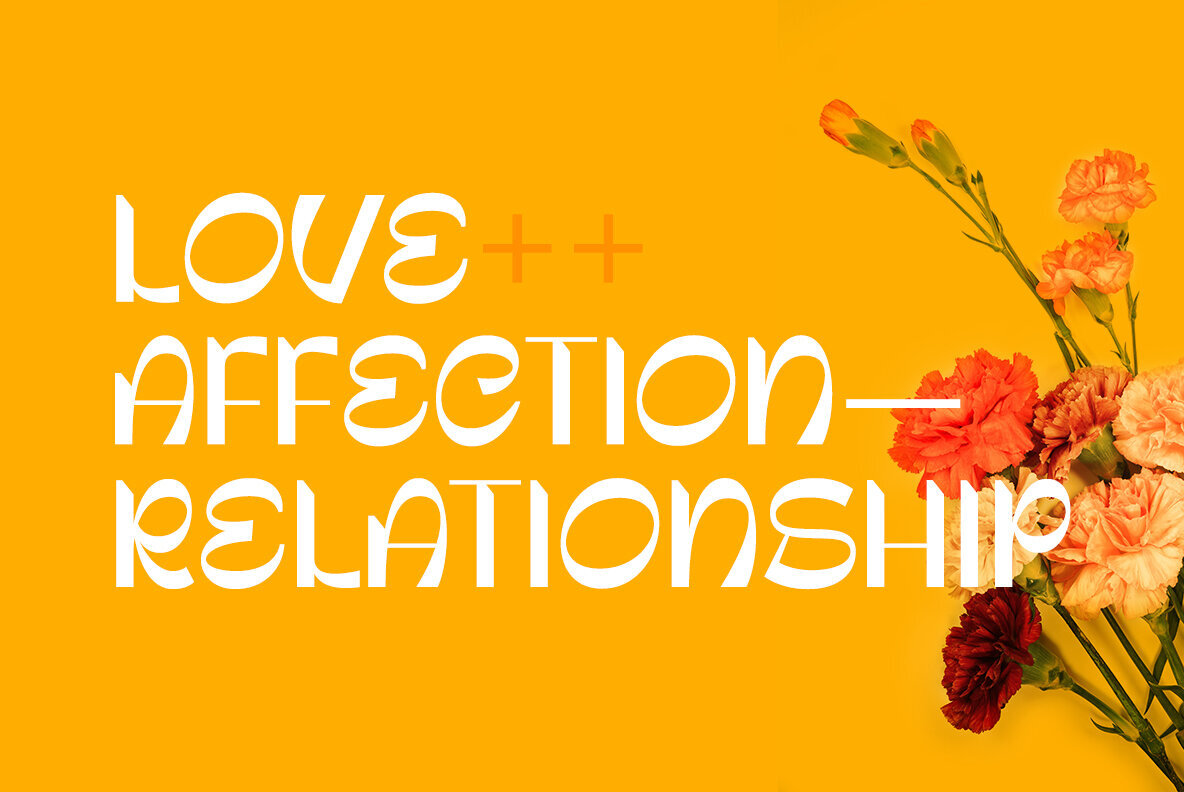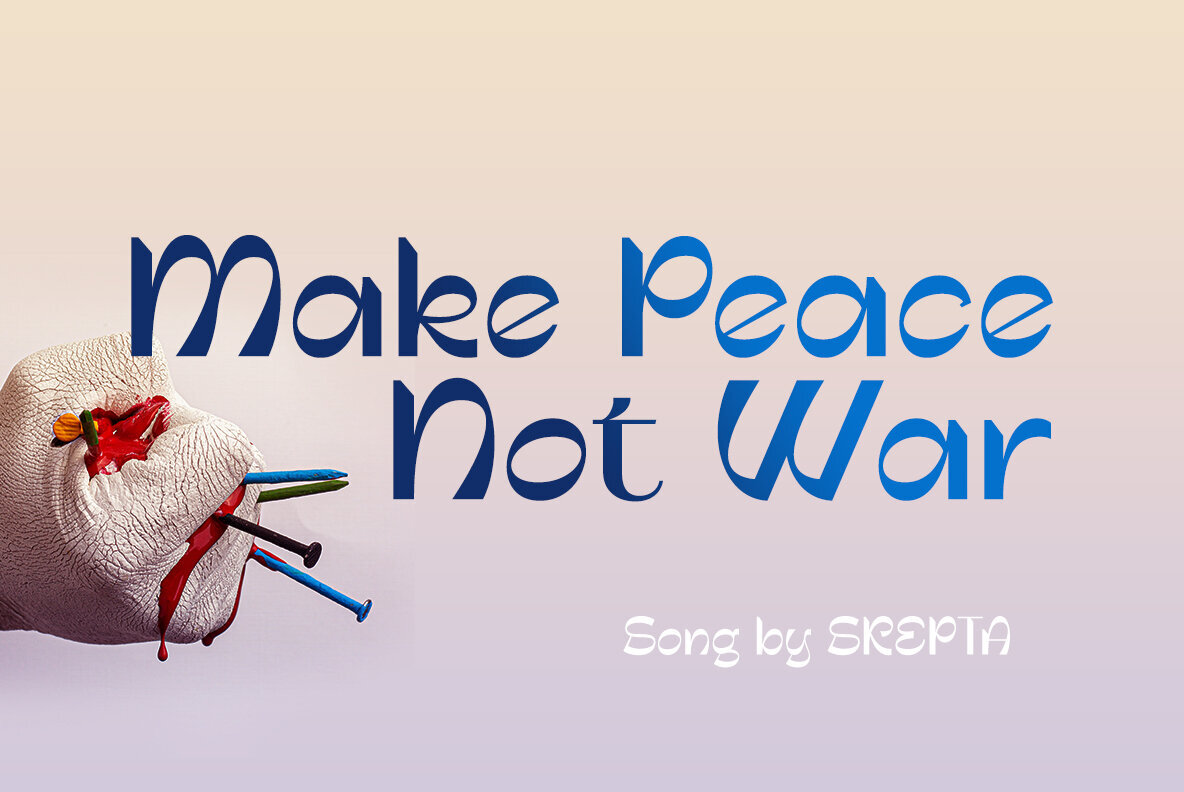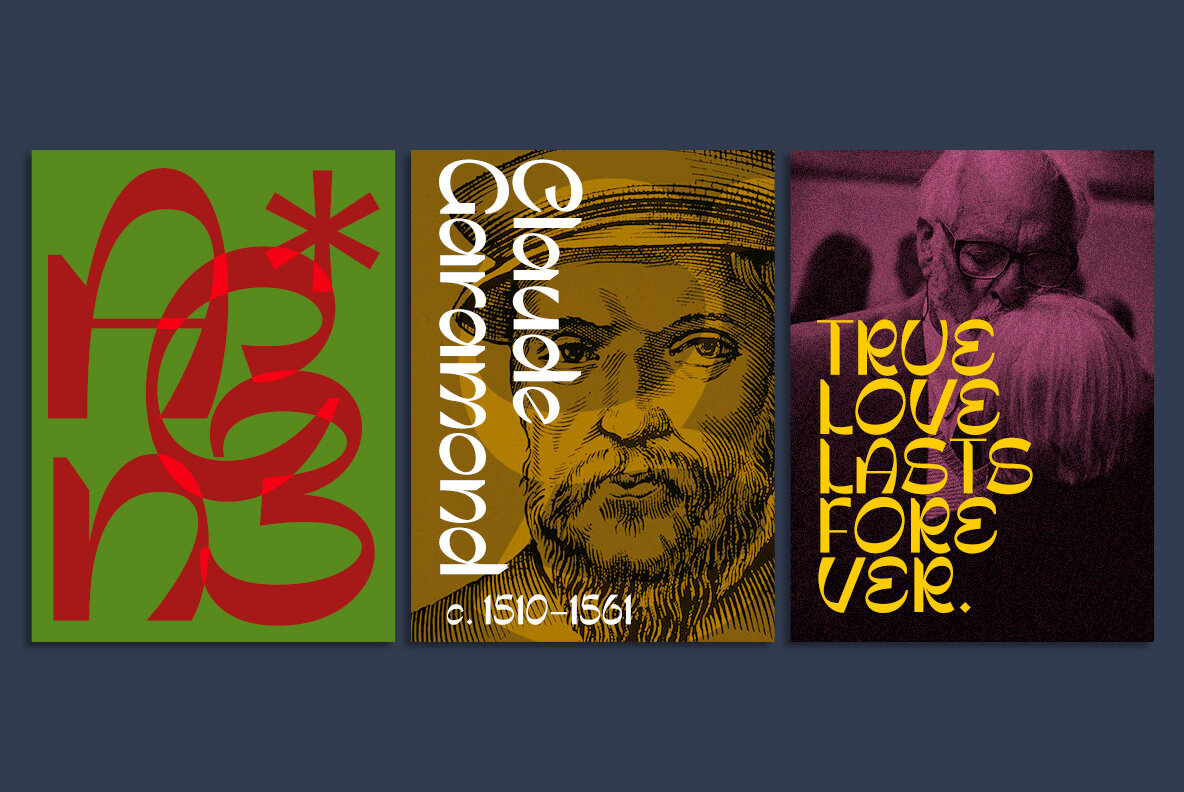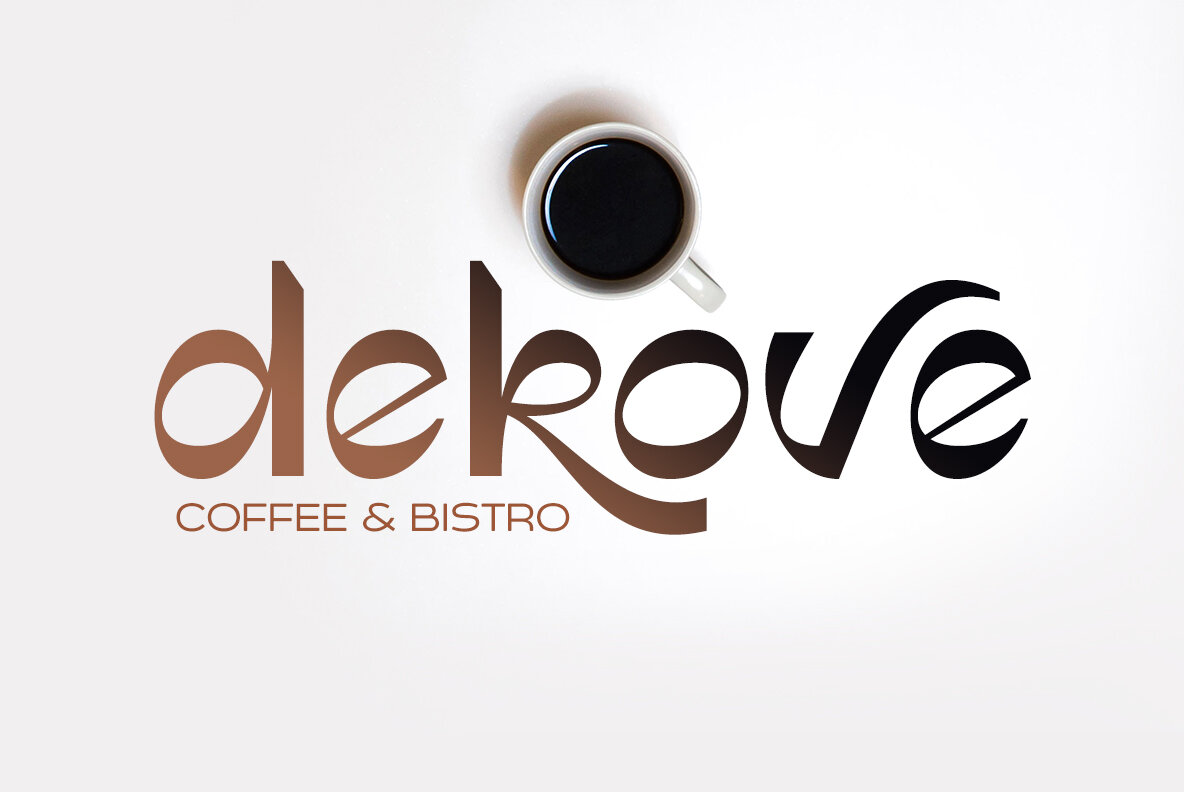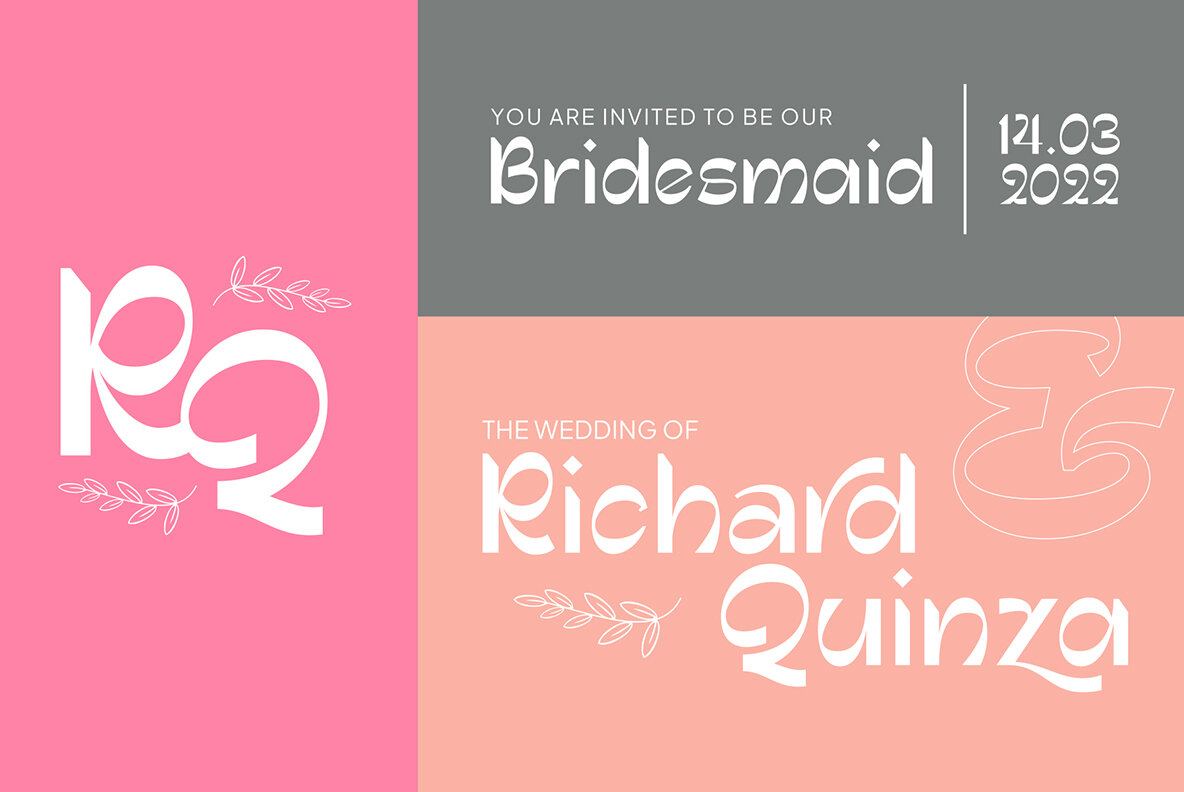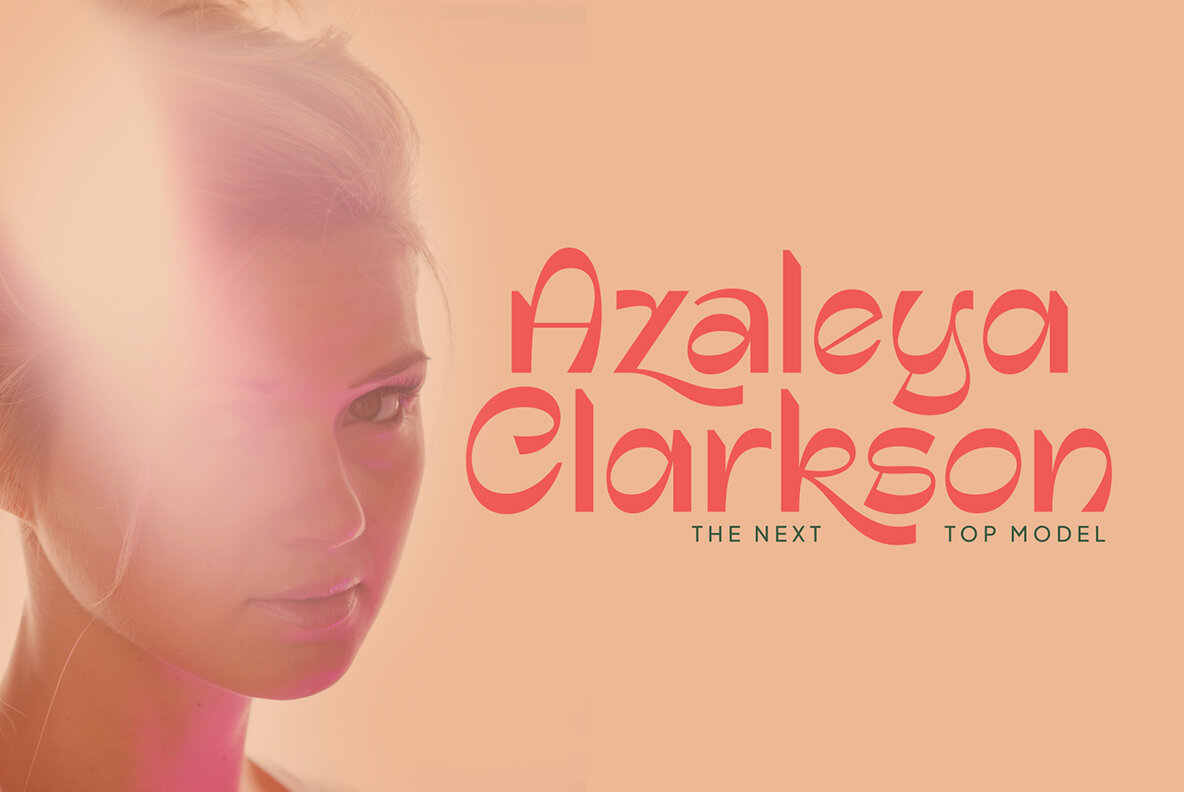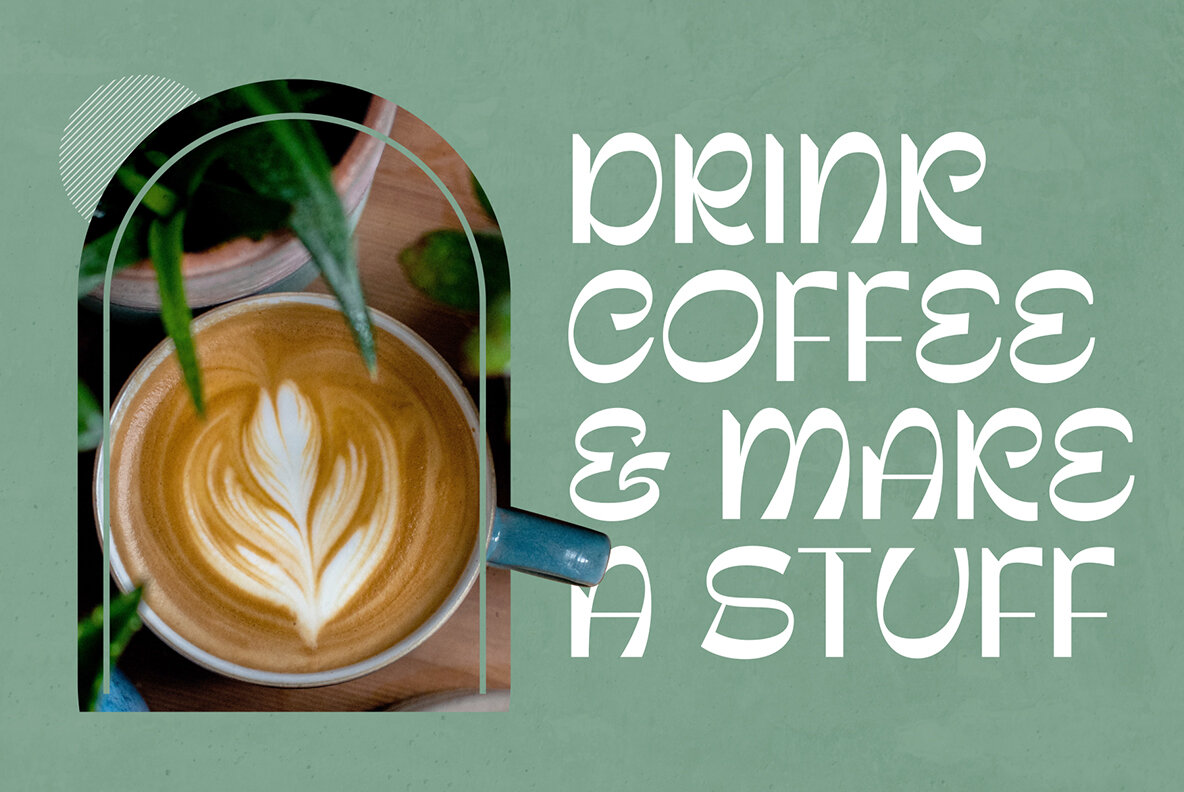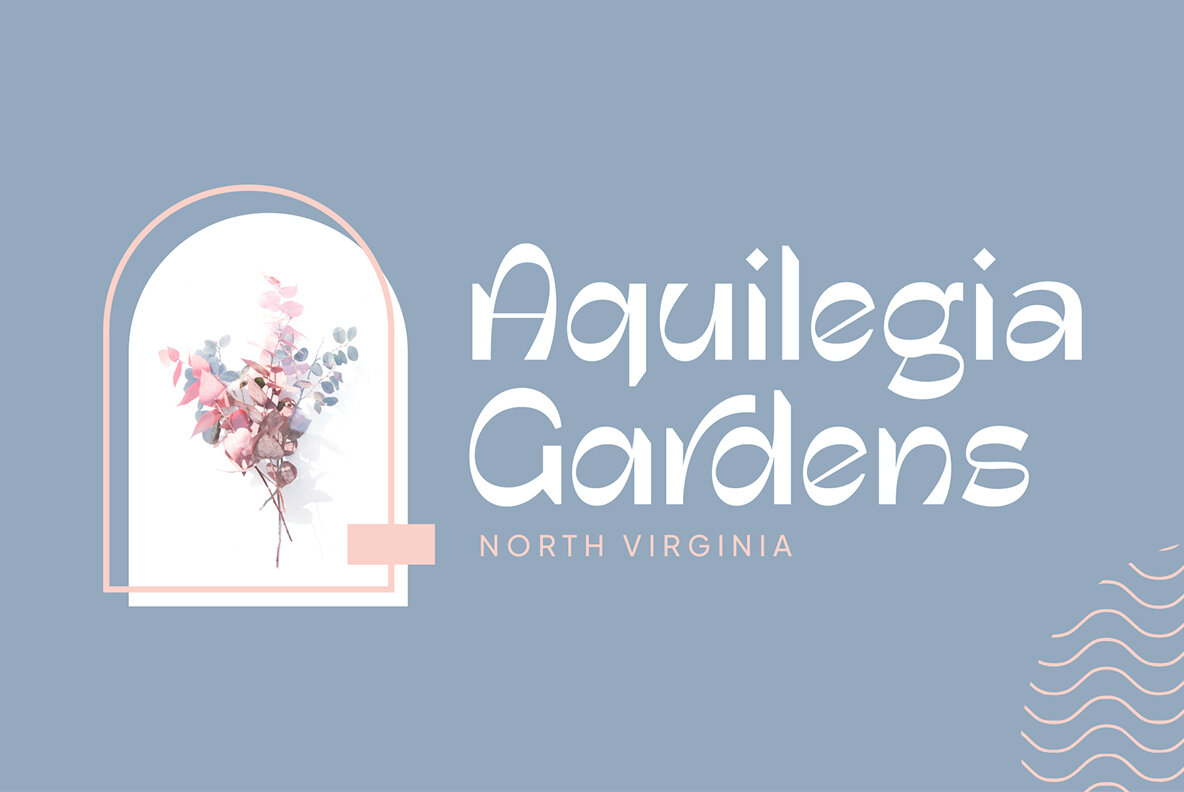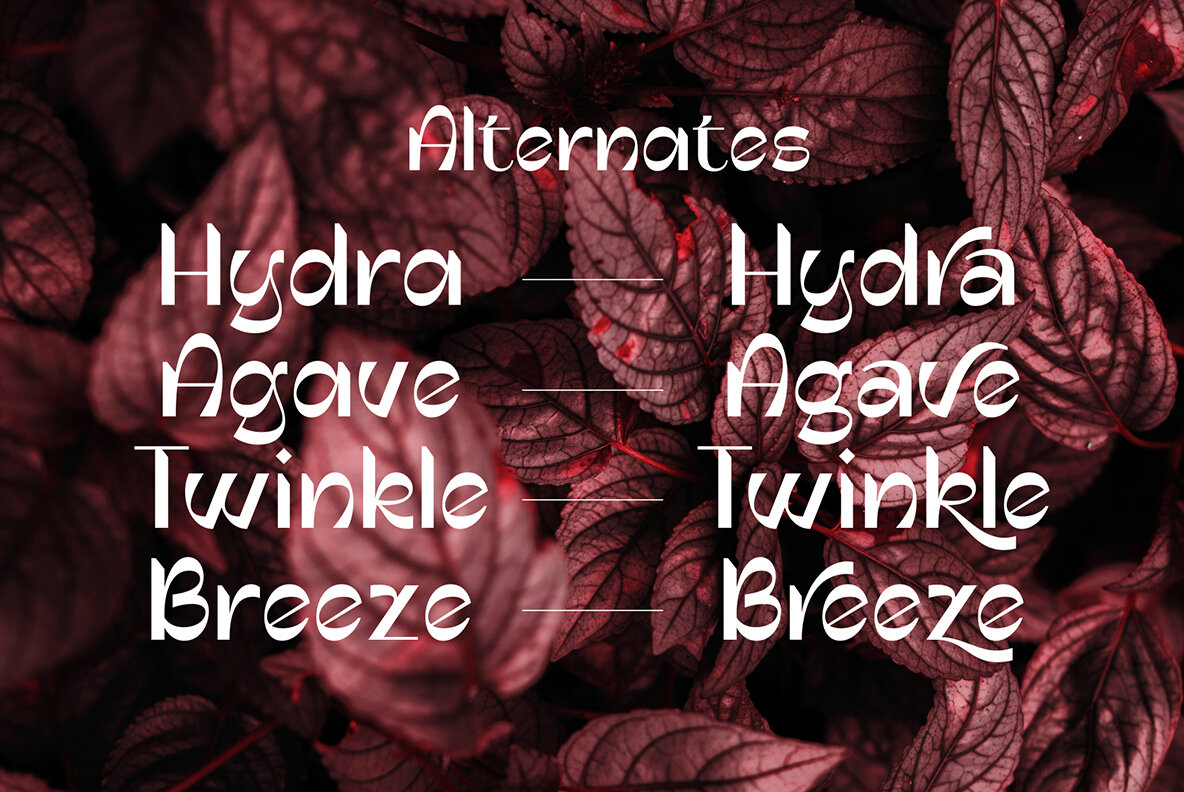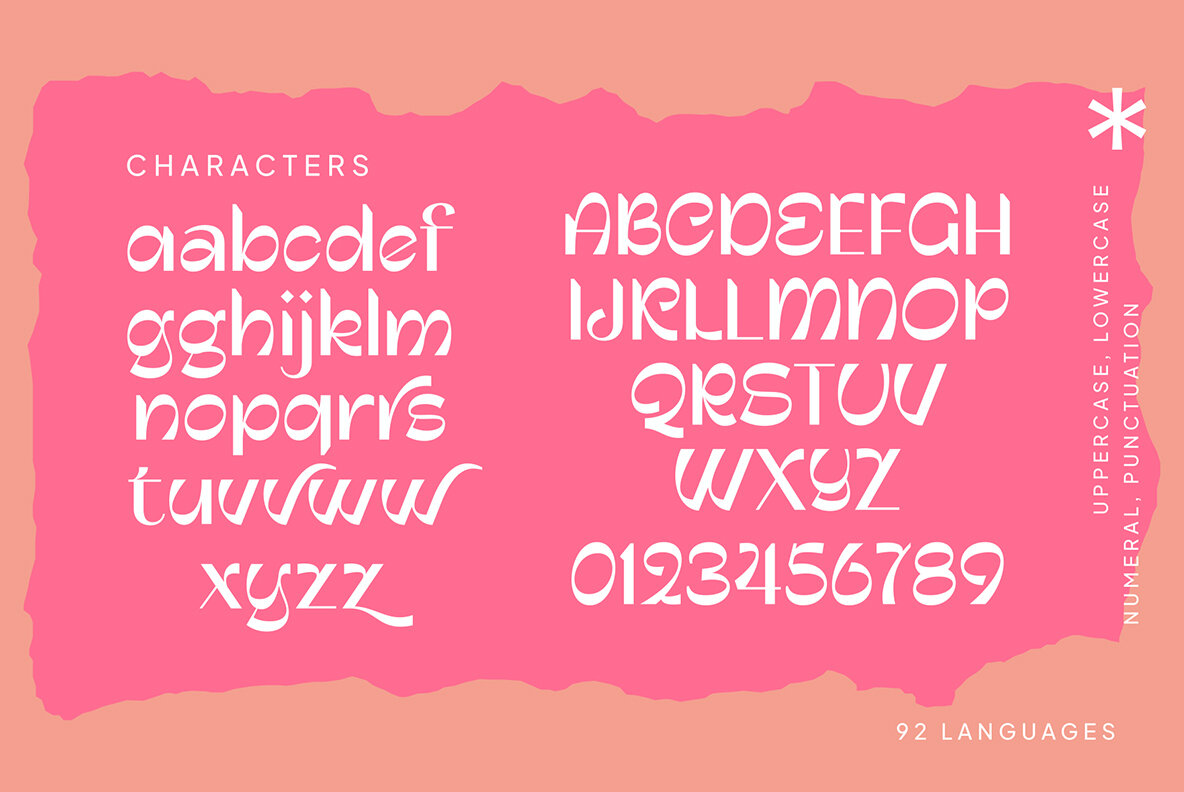
Wonosera is a modern display font with a fairly high contrast. Some parts have reverse contrast and unusual curved directions that makes this font look luxurious. Without much effort, your typographic creations will look unique when using this font both in uppercase and lowercase.
Perfect for poster or headline titles, packaging designs, invitations, beauty clinic logos, love quotes and much more.